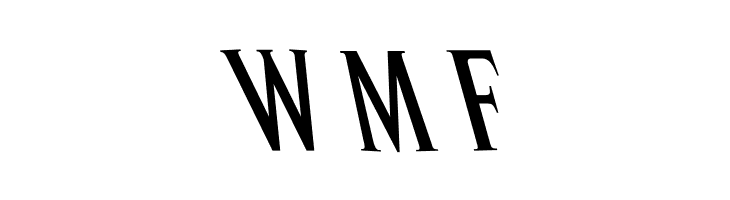
Ani Font
A bold, angular, and geometric font with a modern and artistic flair.
BeautifulOrnamentsThree Font
A collection of intricate and decorative ornamental designs.
butterflips Font
A decorative font featuring unique butterfly illustrations for each character.
Bwgrki Font
A classic Greek-style font with elegant, flowing lines and historical sophistication.
Bwgrkl Font
A classic serif font with elegant curves and strong presence, inspired by traditional Greek typography.
Bwhebb Font
A bold, traditional Hebrew script with clear numerals and balanced spacing.
Bwhebl Font
Decorative Hebrew font with high contrast and ornamental details.
Bwtransh Font
A classic serif font with sharp serifs and moderate contrast, ideal for formal use.
Code2000 Font
A classic serif font with sharp serifs and a formal appearance.
Critters by Darrian Font
Whimsical animal dingbat font with playful, detailed illustrations.
Darrians Sexy Silhouettes 2 Font
Decorative silhouette font with female figure illustrations.
Delano-Caps-Regular Font
A bold, geometric font with a modern and dynamic style.
ELANGO-TML-Panchali-Normal Font
A modern, clean font with balanced proportions and excellent readability.
Hearts by Darrian Font
A decorative collection of intricately designed heart motifs with artistic elements.
InaiMathi Font
A classic serif font with elegant strokes and pronounced serifs.
Jeya Small Font
An elegant and high-contrast script font with decorative elements.
jsMath-cmbx10 Font
A bold, classic serif font with strong strokes and medium contrast.
jsMath-cmex10 Font
A specialized mathematical typeface for complex symbols and notations.
jsMath-cmmi10 Font
A classic, italicized serif font with medium contrast and elegant curves.
jsMath-cmr10 Font